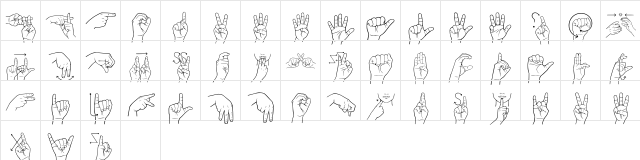
Lengua De Senas Chilena Hef Regular
Lengua De Senas Chilena Hef takes a measured approach to typography — its balanced proportions and neutral character make it a reliable workhorse for both digital and print work.